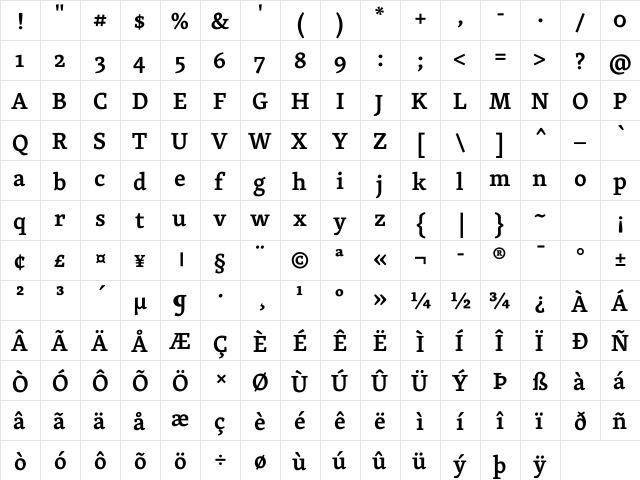
Skolar Semibold Font Preview
Skolar Semibold
Skolar Semibold Font Details
| Style | Semibold |
| Foundry | David Brezina |
| Designer | David Brezina |
Design Context for Skolar Typeface
Skolar takes a measured approach to typography — its balanced proportions and neutral character make it a reliable workhorse for both digital and print work. The heavy weight commands attention and anchors typographic hierarchies.